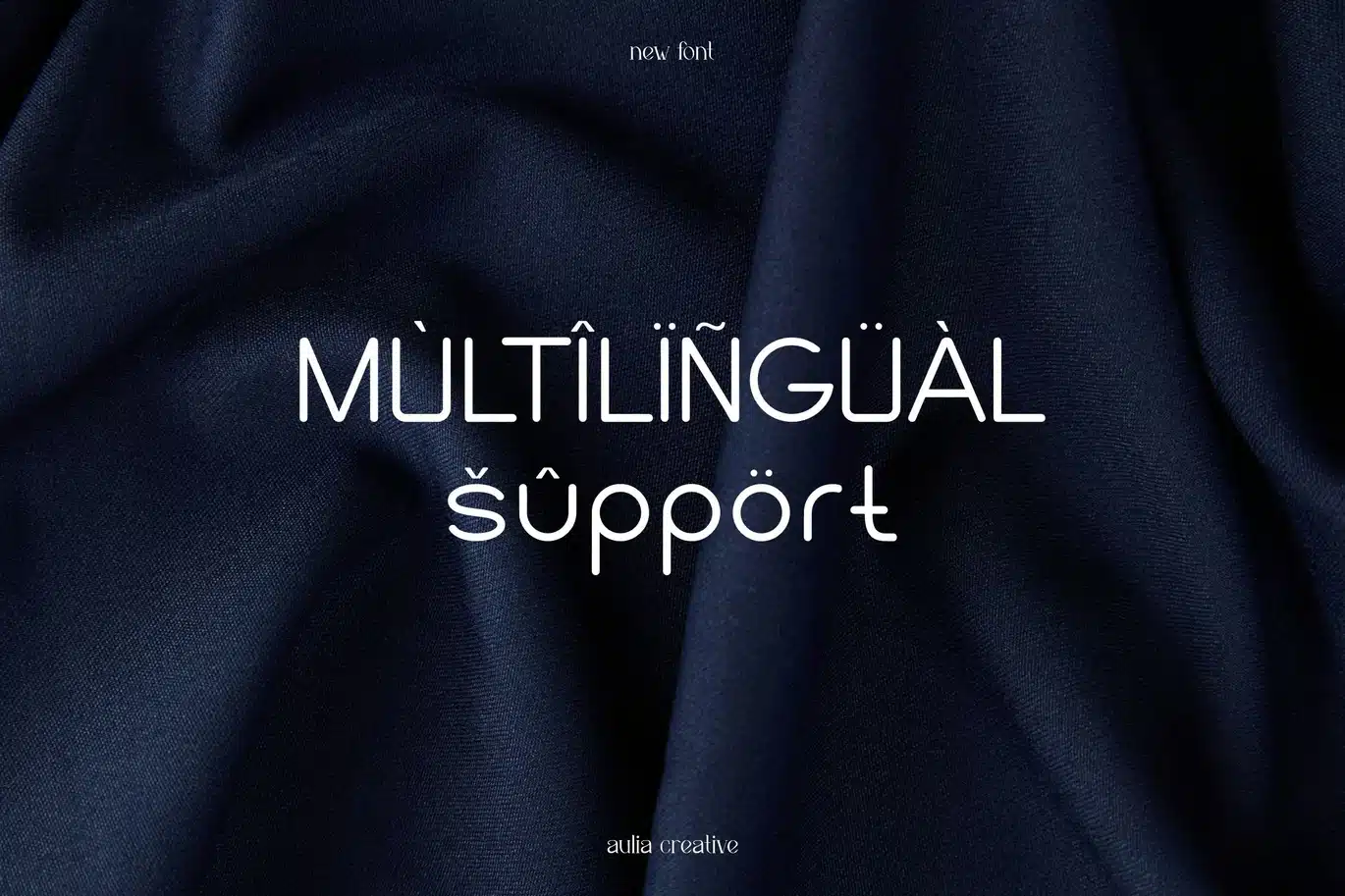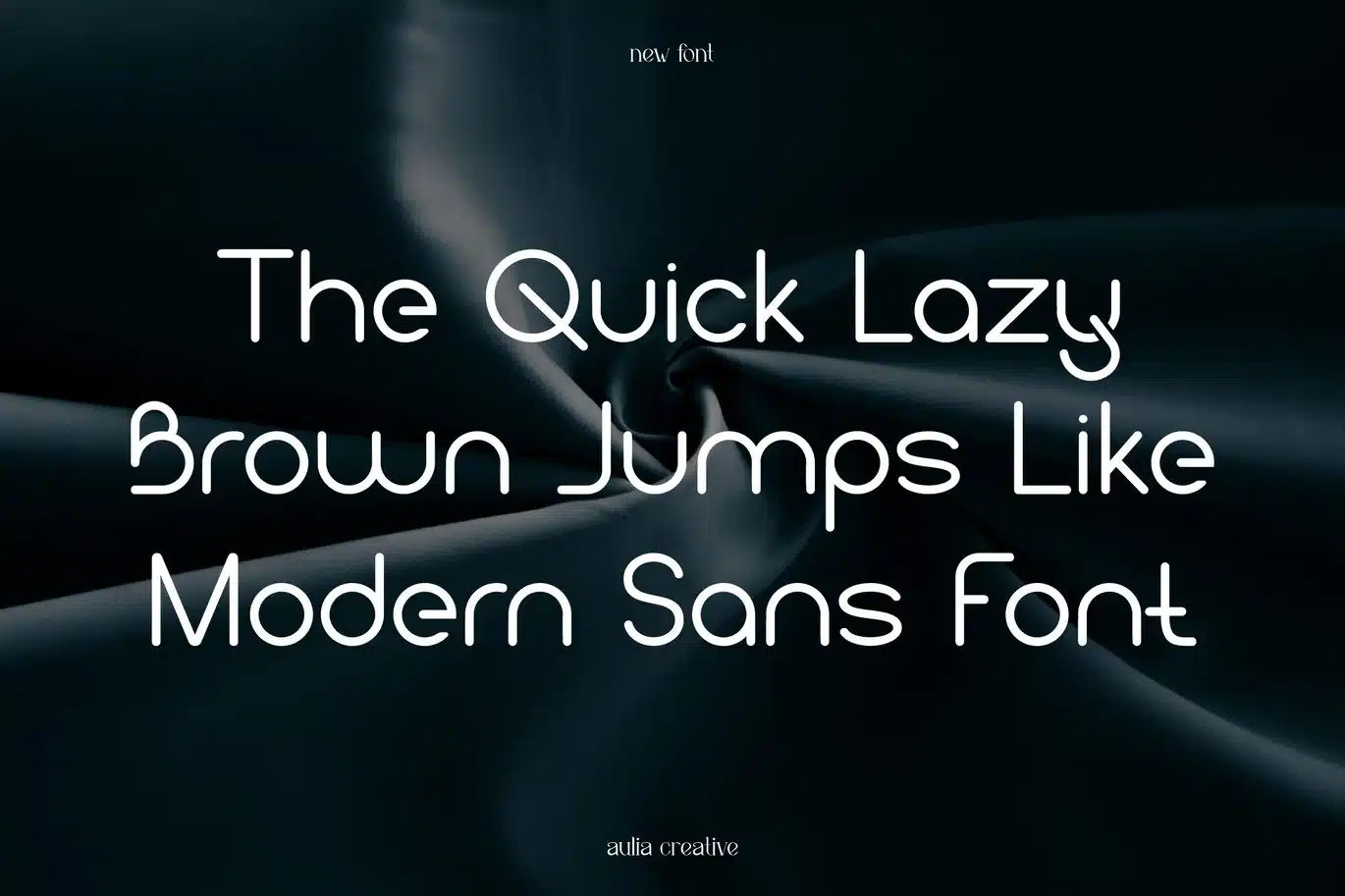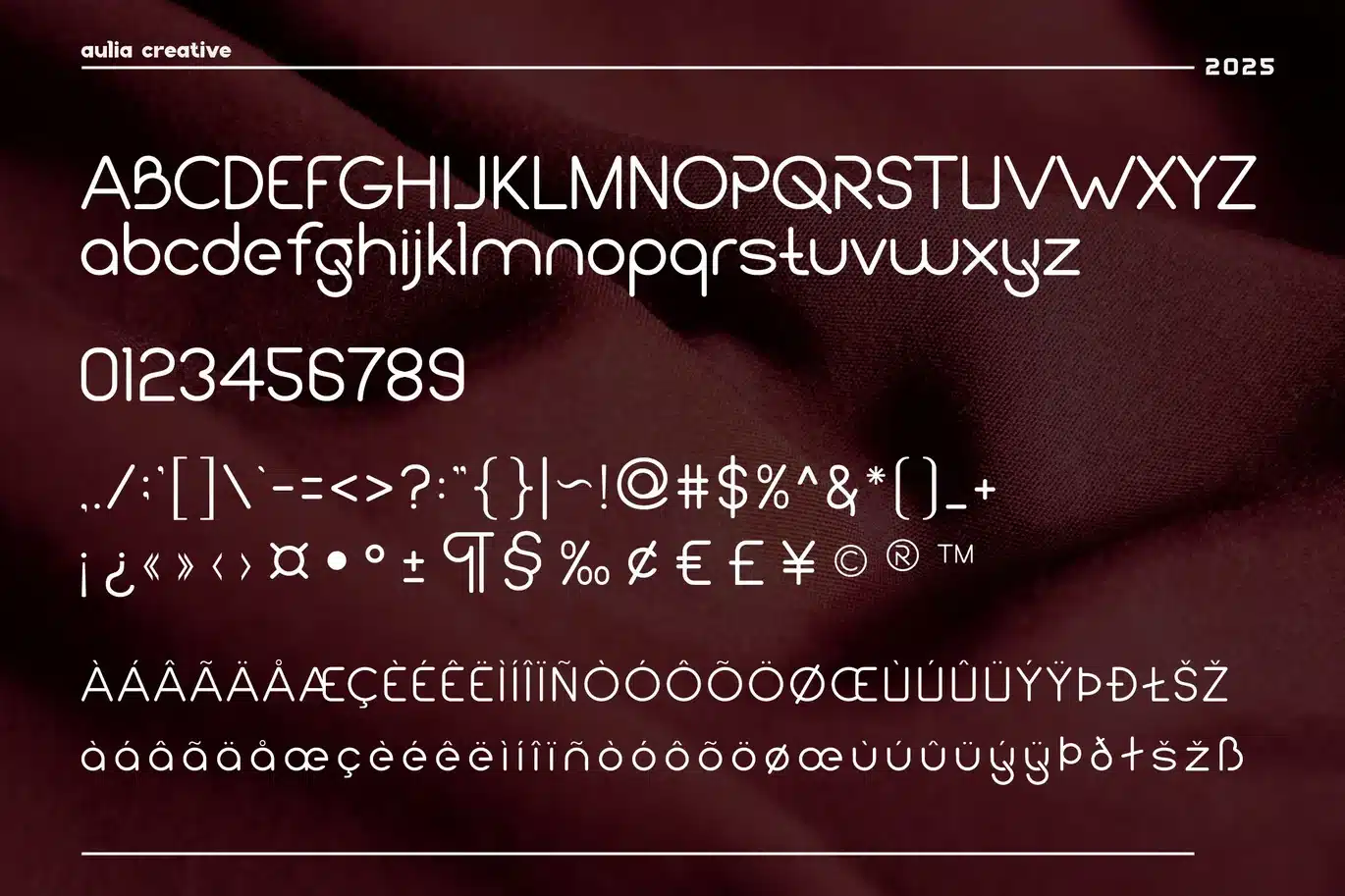
Perimet – Sans Font Logo
Introducing our new product Qers - Minimalist Elegane Logo Font
Perimet - Sans Font Logo is and awesome and authentic display font.
- Introducing QERS, a font that embodies modern luxury and elegance. Designed to enhance your brand image, QERS combines a minimalist and ultra-classy style with timeless sophistication, making it perfect for high-end logos and branding projects.
- Number & Symbol
- UPPERCASE, lowercase